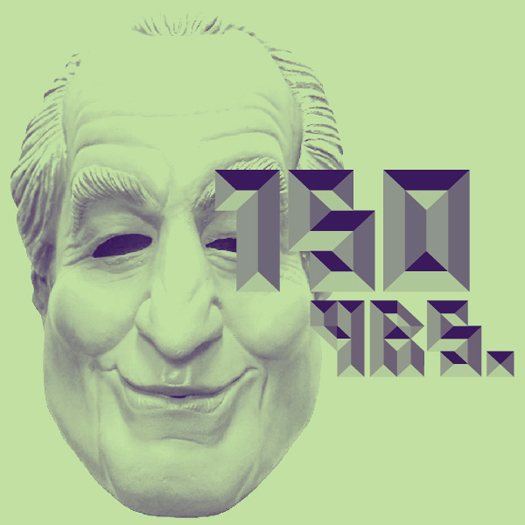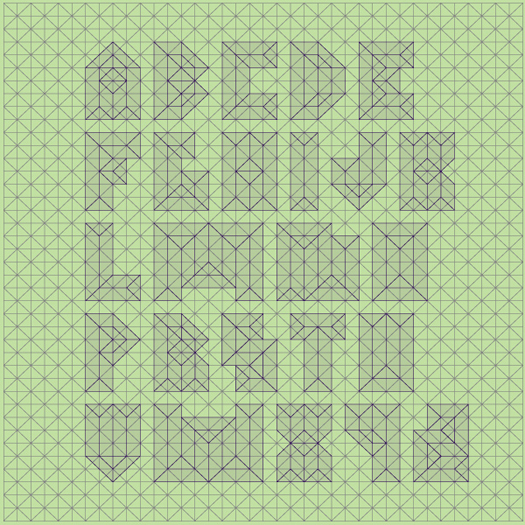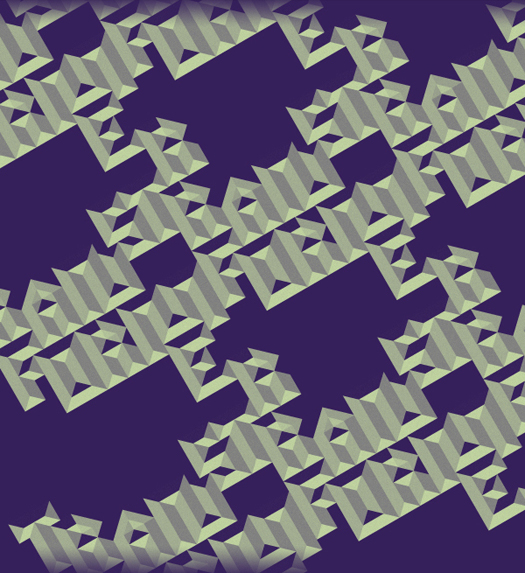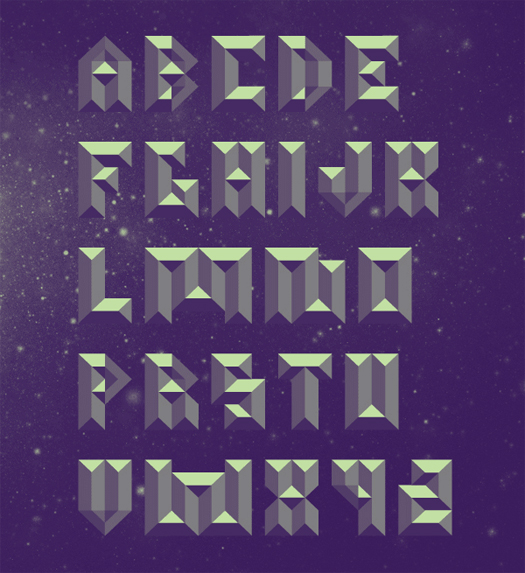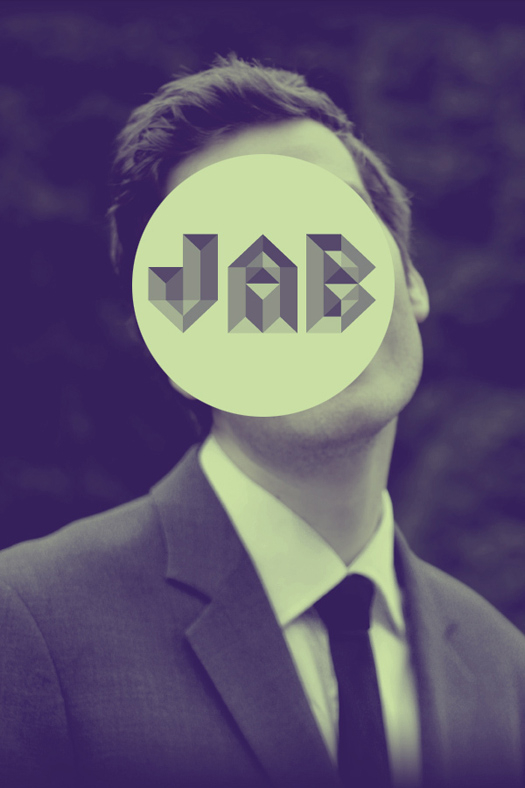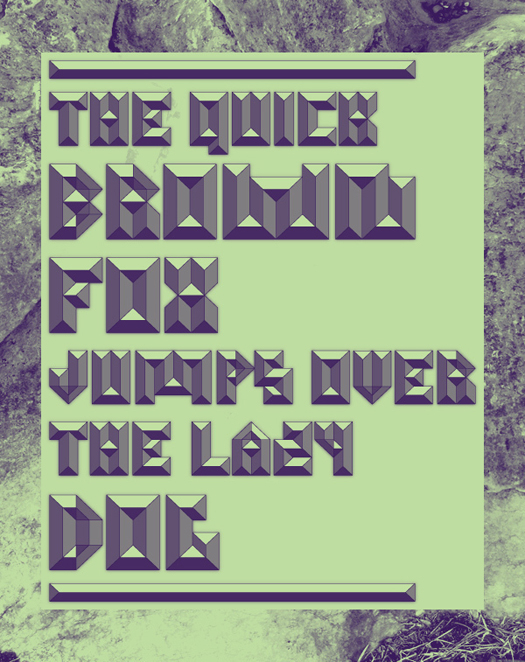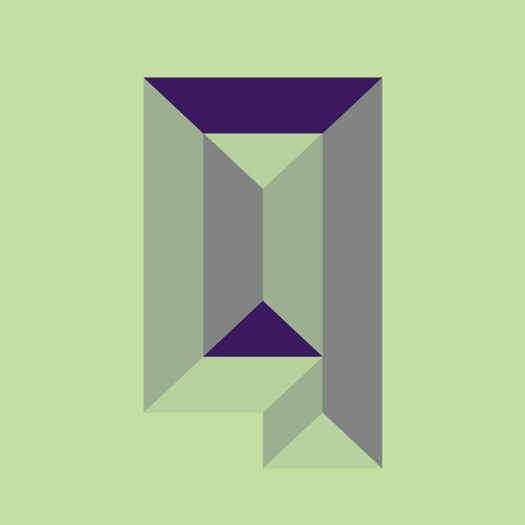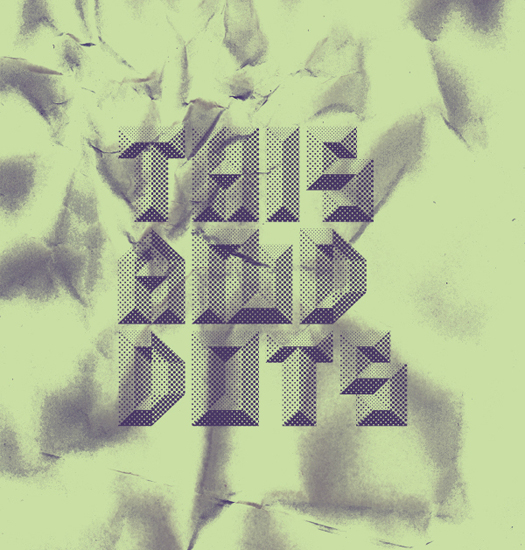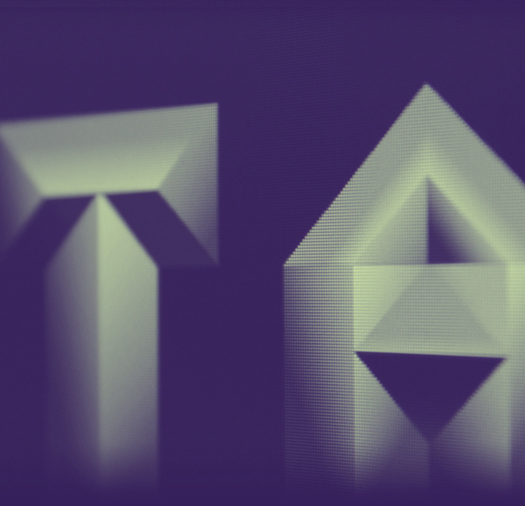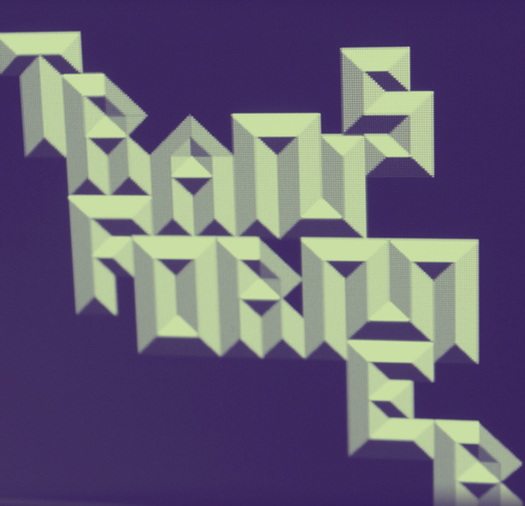
Metalface
Self-initiated typography experiment. I wanted to make some kind of grid-based metal type and see how I could develop it in different directions. I still see this as an ongoing project.
Designer: Jon Arne Berg